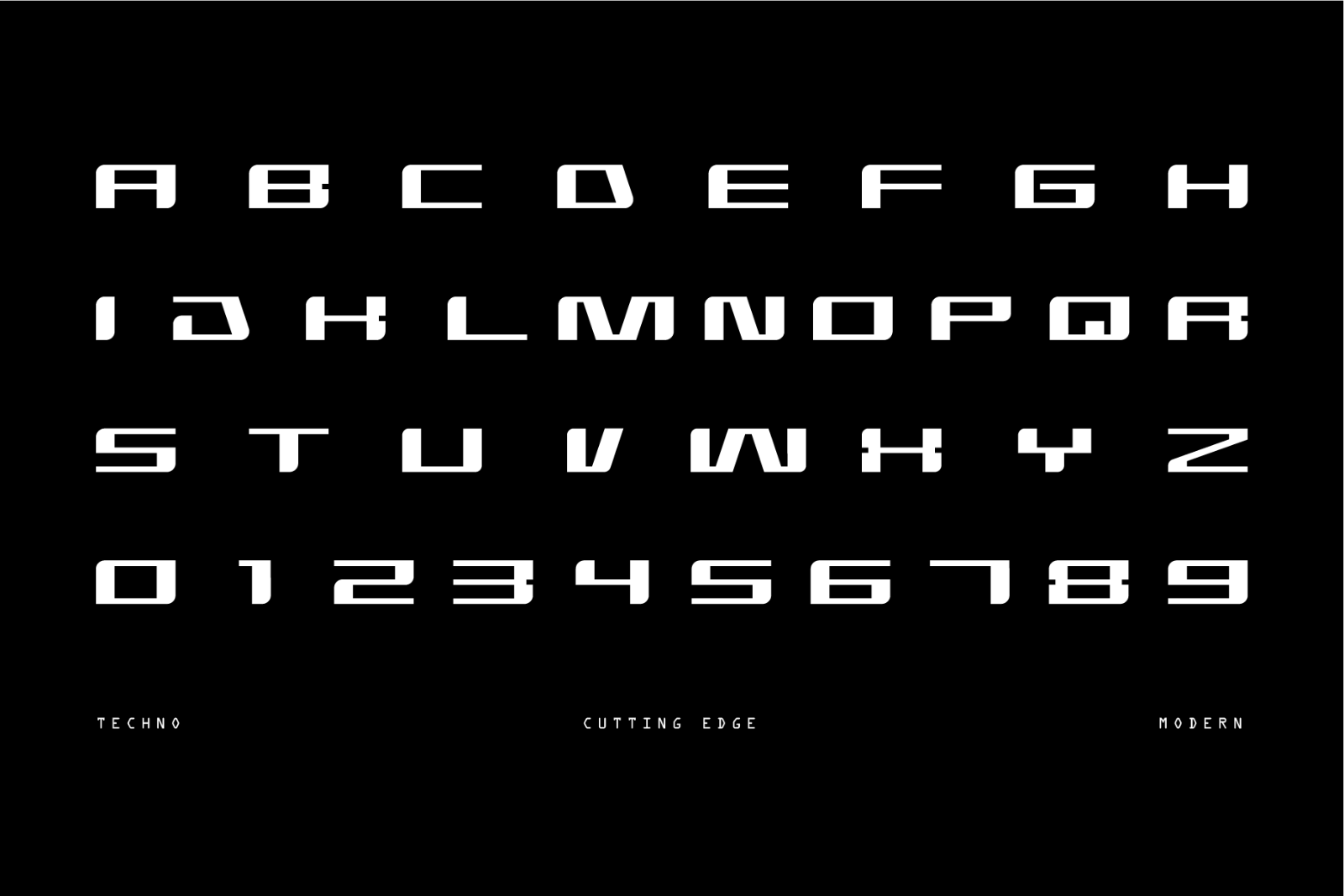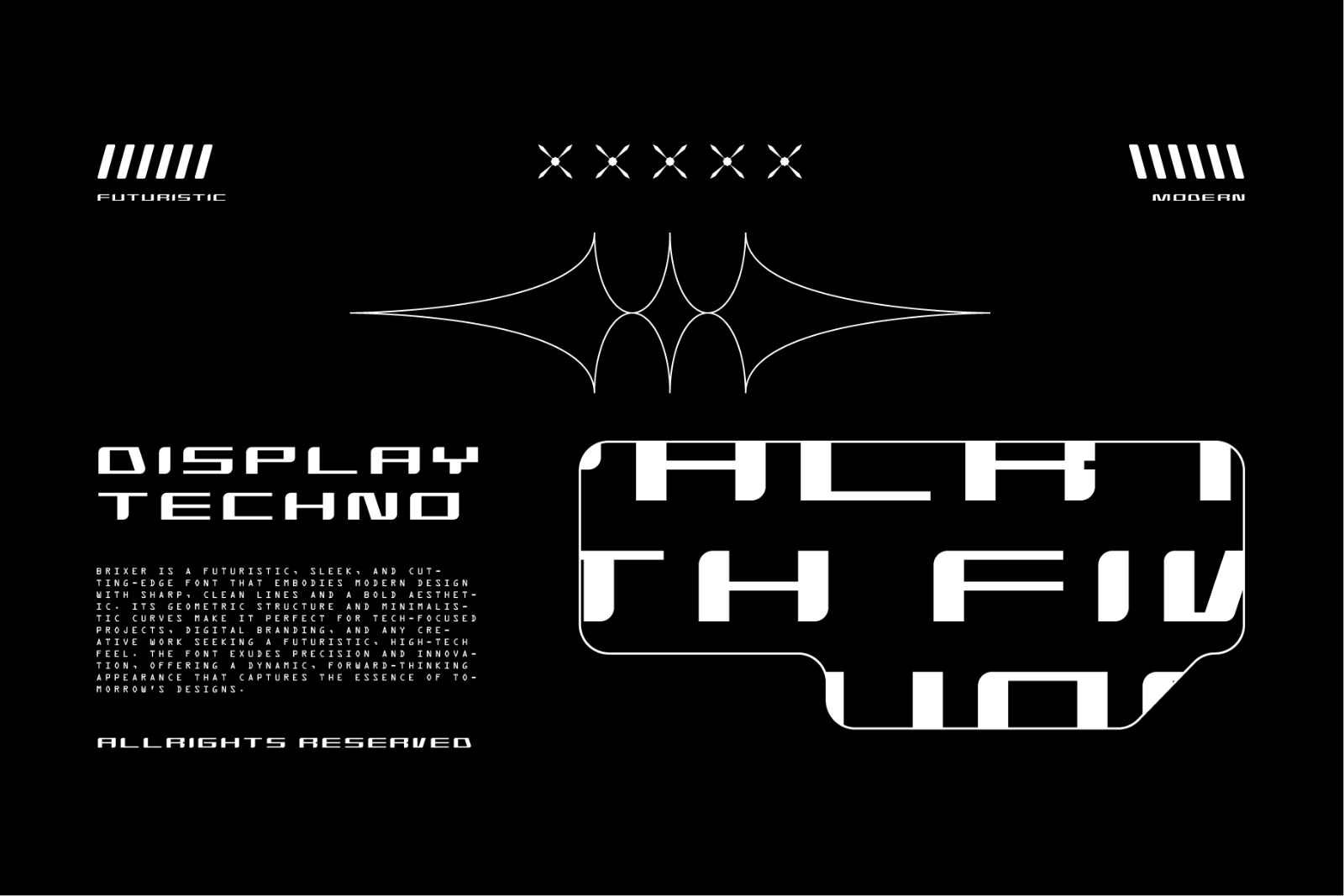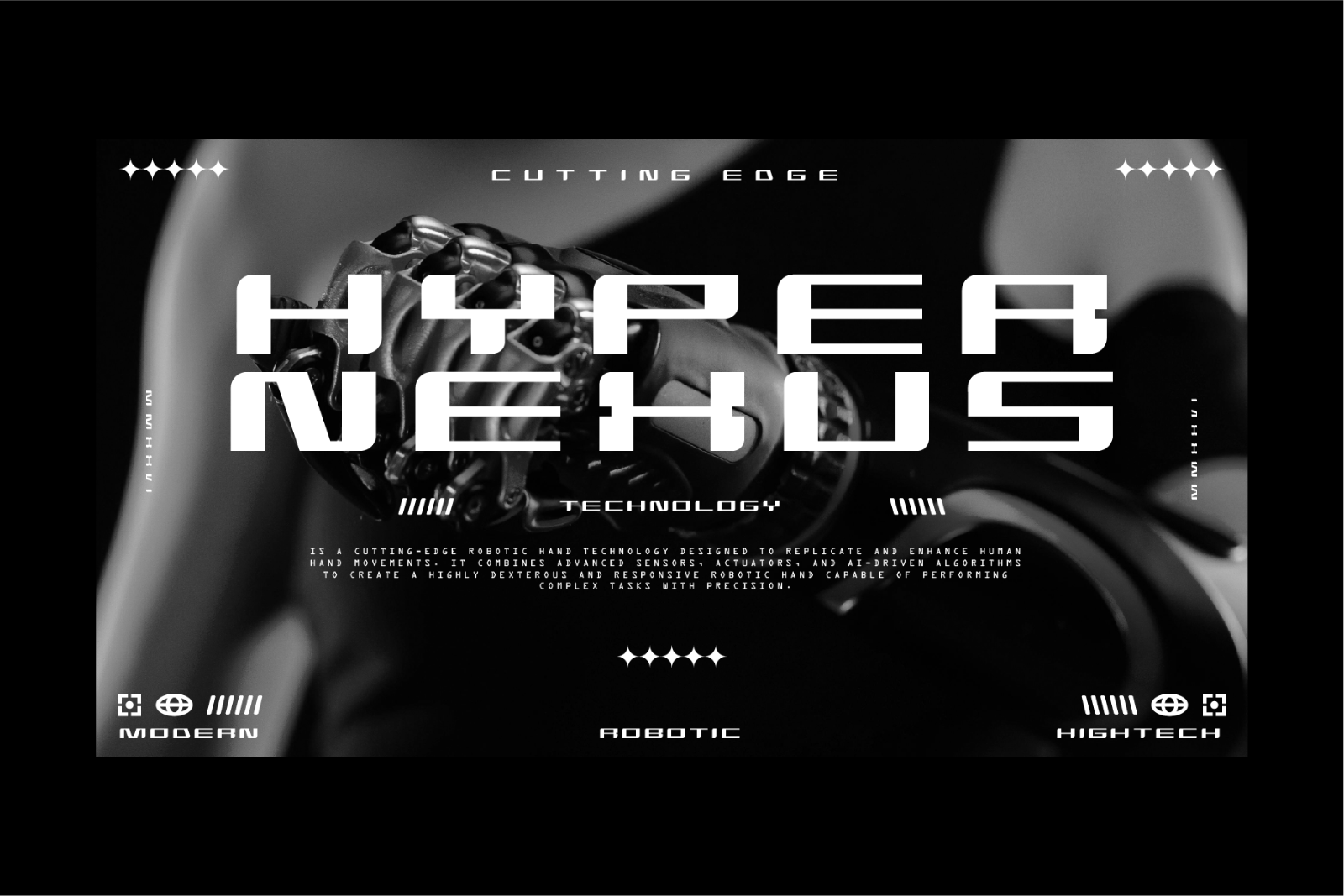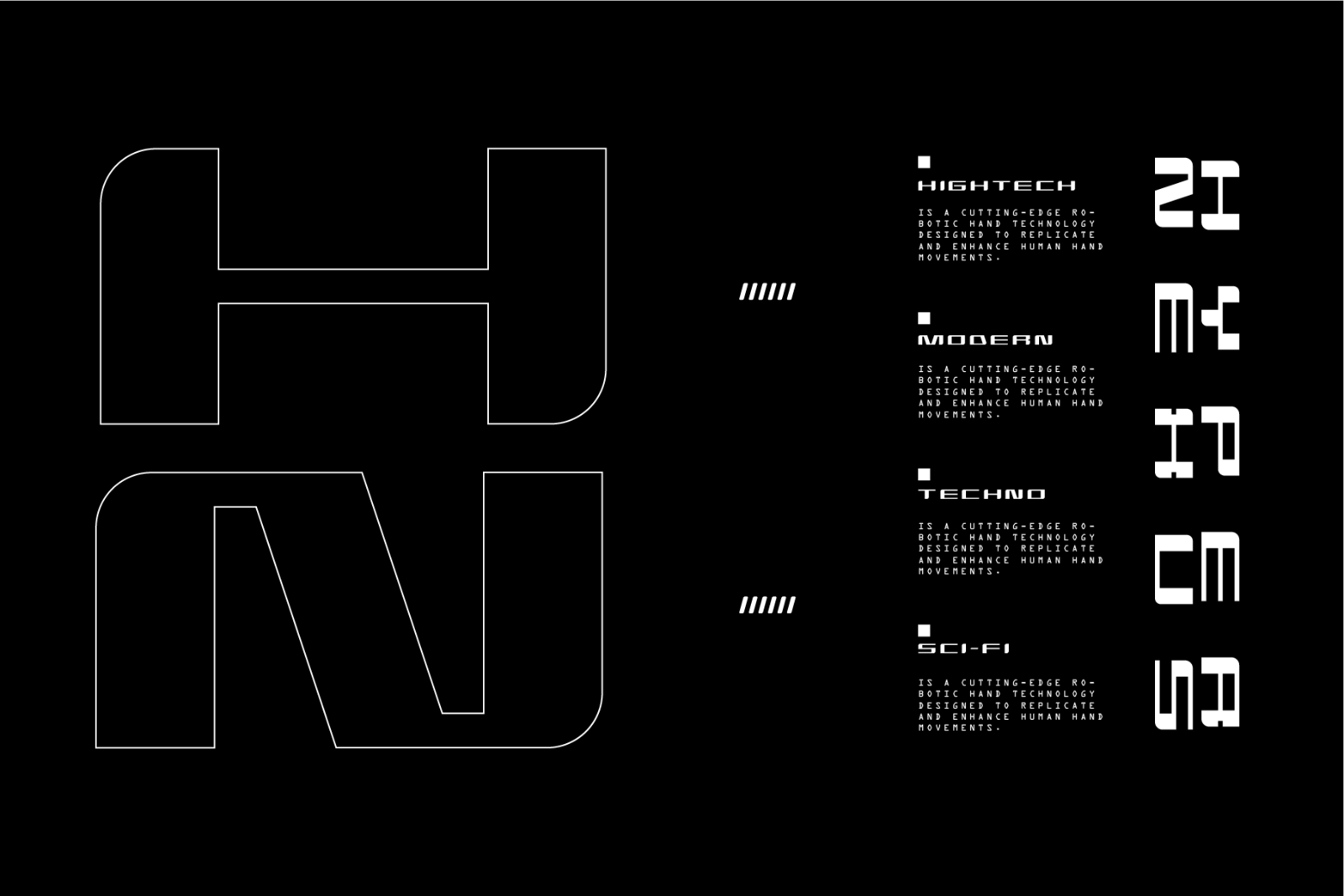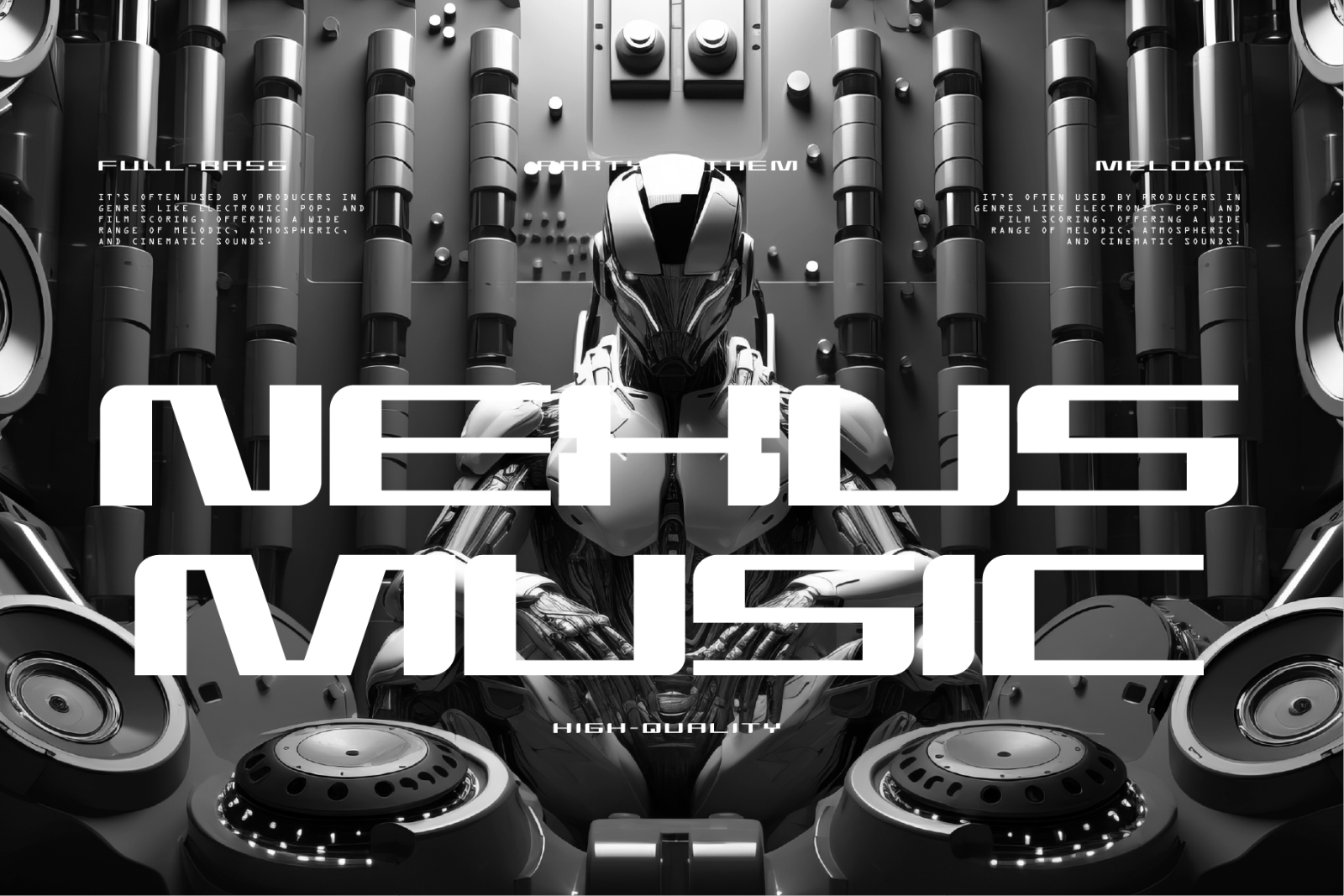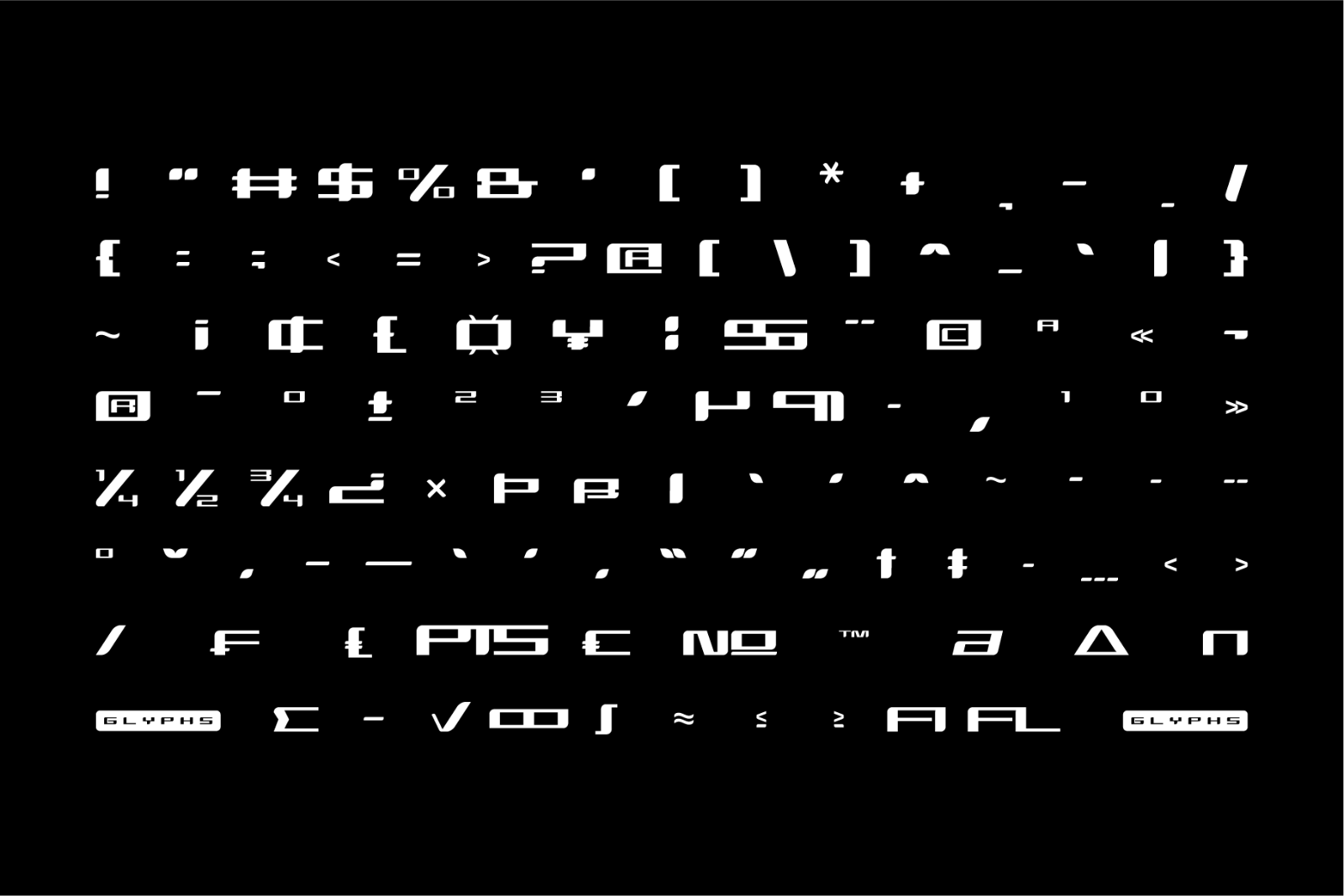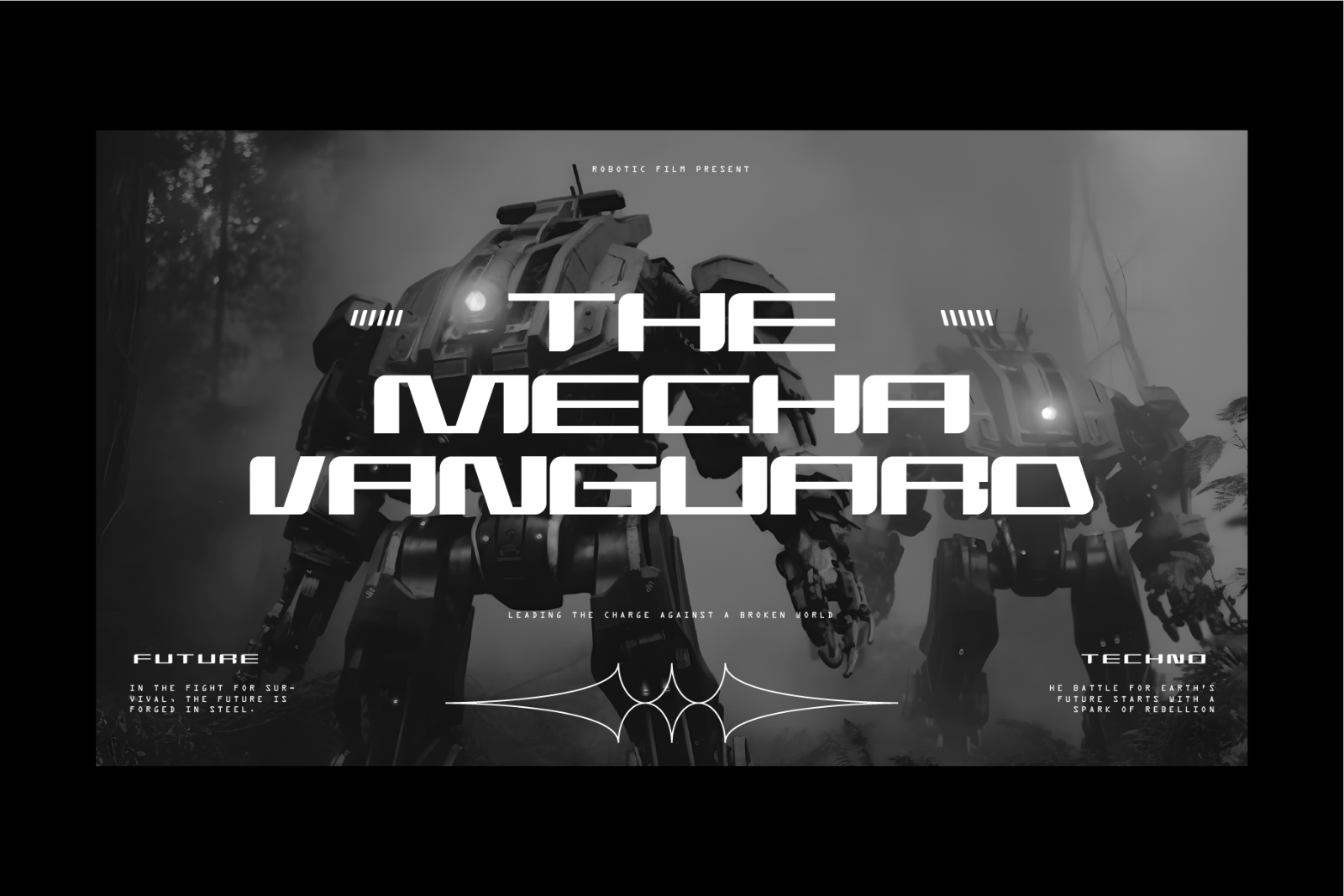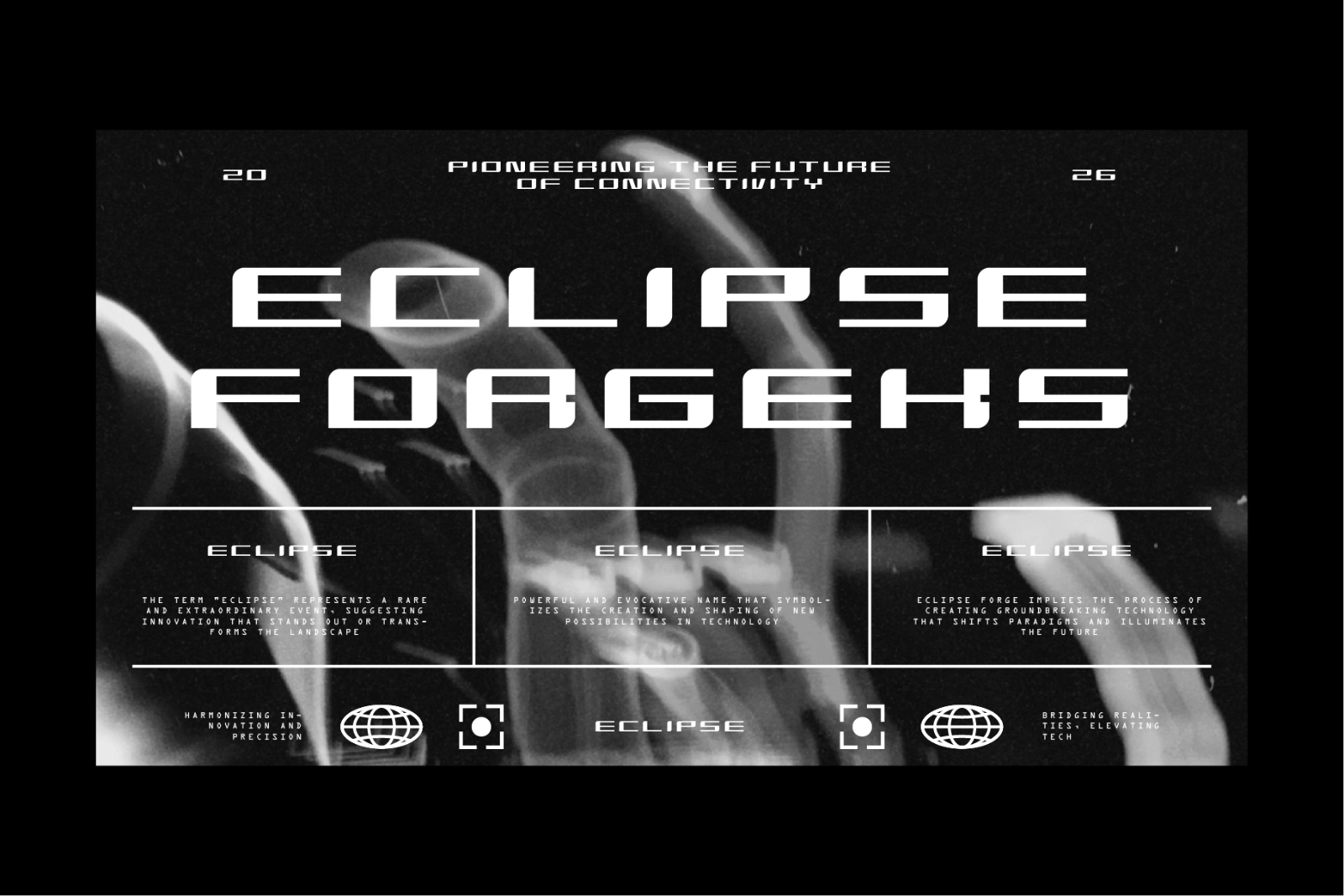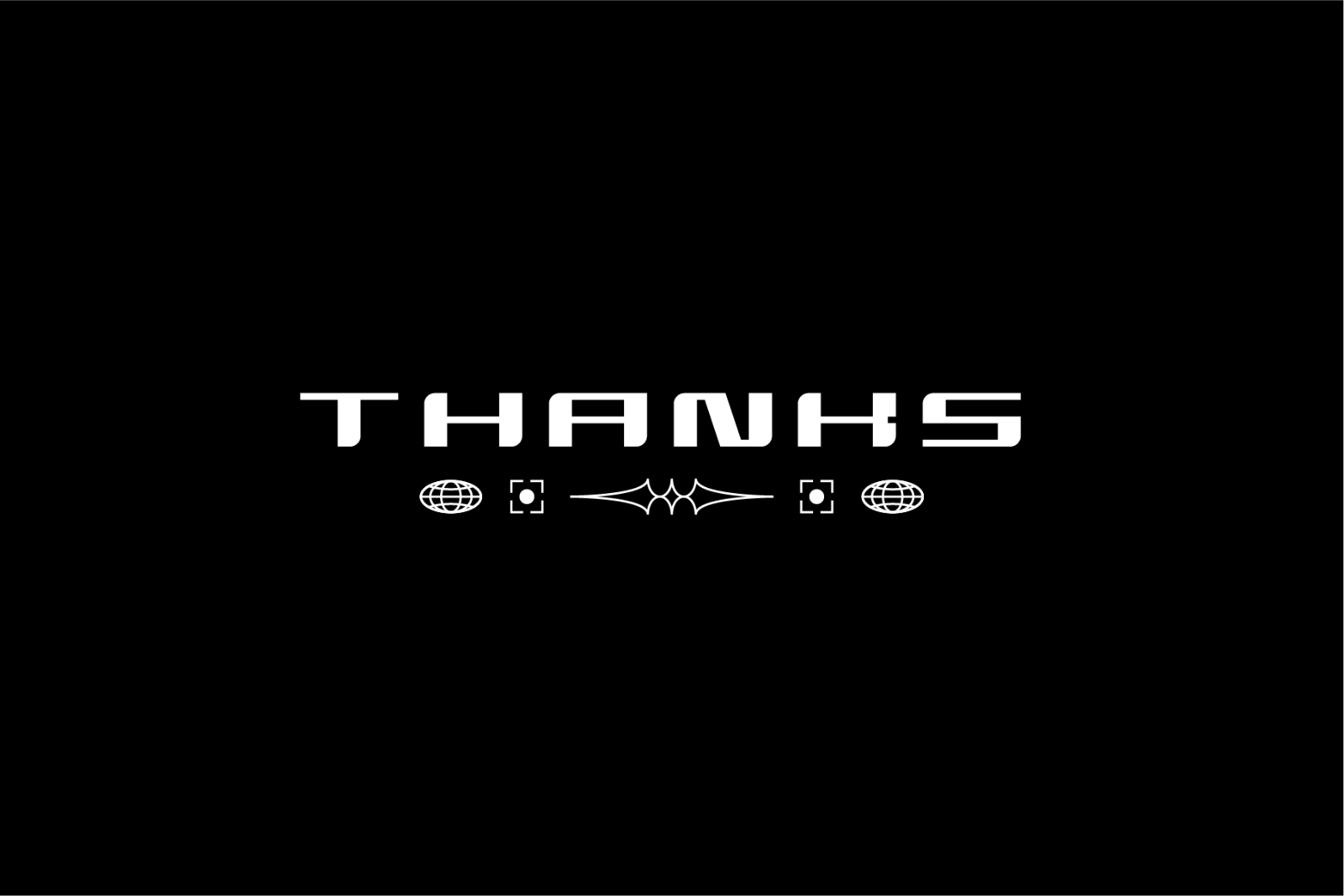
MarketplaceFontsBrixer - Futuristic Display Font
Brixer is a futuristic, sleek, and cutting-edge font that embodies modern design with sharp, clean lines and a bold aesthetic. Its geometric structure and minimalistic curves make it perfect for tech-focused projects, digital branding, and any creative work seeking a futuristic, high-tech feel. The font exudes precision and innovation, offering a dynamic, forward-thinking appearance that captures the essence of tomorrow's designs.